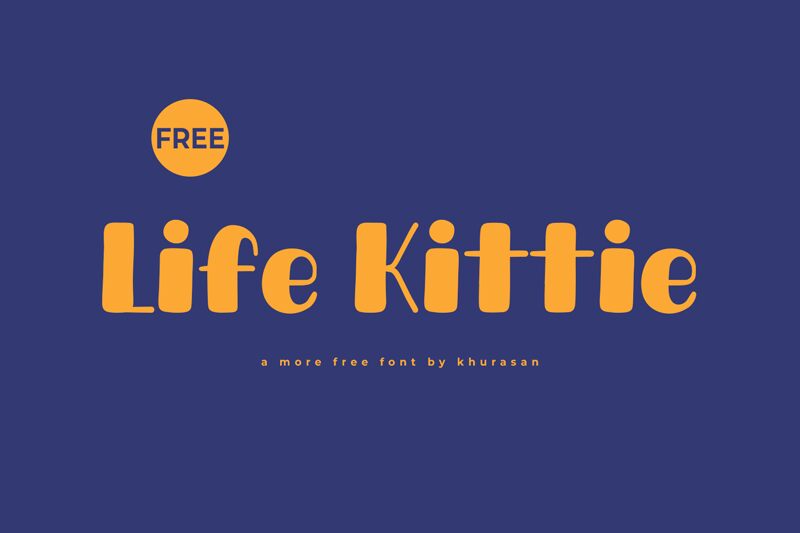
Life Kittie
Life Kittie, a bold and captivating display font crafted by Khurasan, exudes a playful and whimsical charm. With its playful, cartoon-inspired aesthetic, this font instantly captures the eye and evokes a sense of lighthearted creativity. The thick, confident strokes and rounded shapes convey a sense of warmth and approachability, making it an engaging choice for a variety of design projects.
This versatile font lends itself well to headlines, titles, and branding applications, where its distinctive personality can truly shine. Whether you're designing engaging social media content, attention-grabbing marketing materials, or eye-catching product packaging, the Life Kittie font can add a delightful and memorable touch that resonates with your audience.